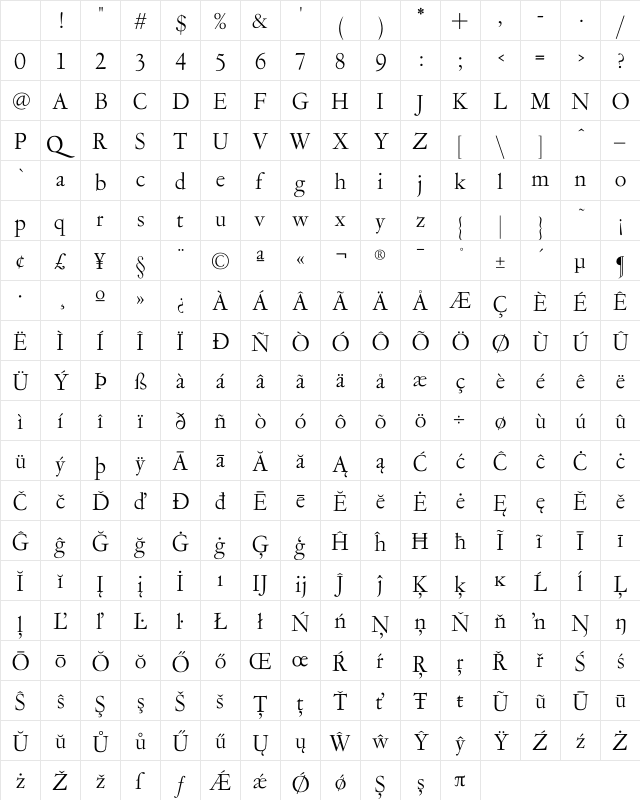
Complete LTC Garamont Display OT Regular glyph index. Displaying only characters natively supported by LTC Garamont Display OT Regular font.
LTC Garamont Display OT is built around its visual character rather than neutral utility - its distinctive forms are designed to make an impression at display sizes.
Font Pairing: Pair with a clean neutral sans-serif for body copy to let LTC Garamont Display OT's character lead without overwhelming the composition.
Pro Tip: Use LTC Garamont Display OT exclusively at display sizes - it was designed to be seen, not read at length. Let a neutral companion handle body copy.